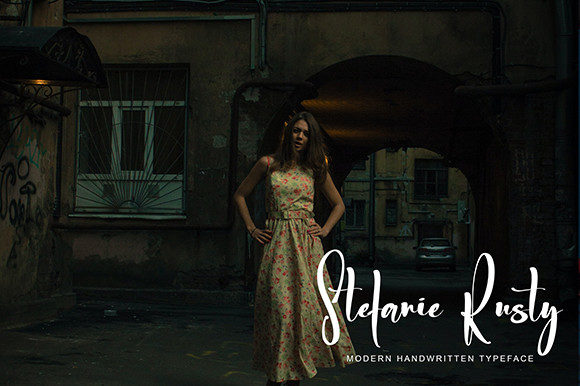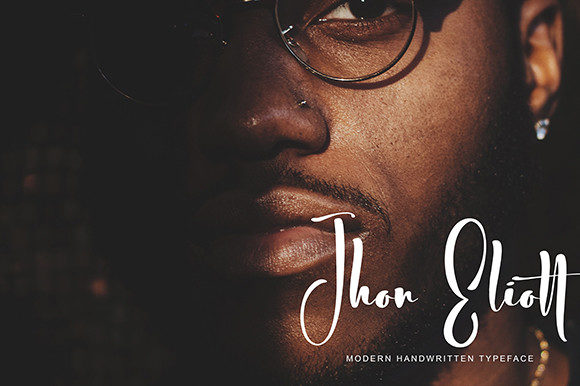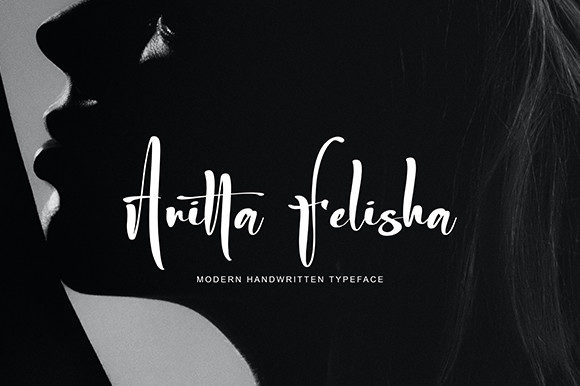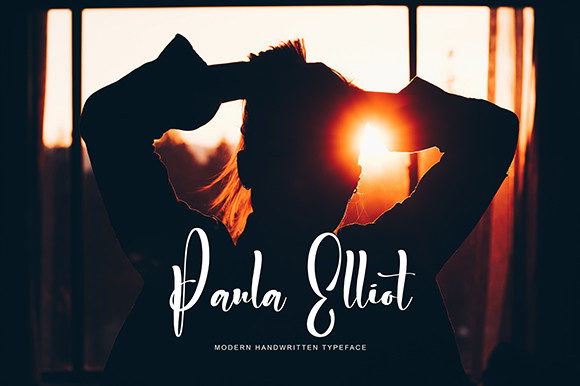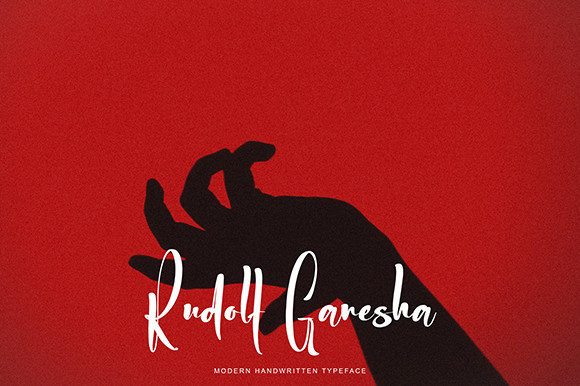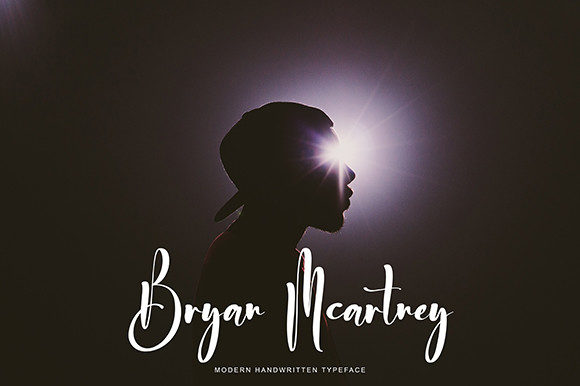
The Perfect Touch of Elegance: Introducing Amstterdam Font
Have you ever been working on a design project, pouring your heart and soul into it, only to feel like something’s missing? That’s when the magic happens – you stumble upon the perfect font. For me, that moment came when I discovered the Amstterdam Font. Its delicate, handcrafted feel instantly elevated my designs and gave them a luxurious touch.
| 👤 Author | Pineungtype & Missinklab |
Amstterdam Font is a calligraphy typeface designed to add a touch of sophistication to any project. With its unique characters dancing along the baseline, it’s the perfect choice for designers looking to create high-end designs. What sets it apart is its PUA encoding, making it easy to access all the amazing glyphs and ligatures. Whether you’re working on a branding project, a wedding invitation, or a marketing campaign, the Amstterdam Font is sure to impress.
Amsterdam Font Key Features
- Unique Characteristics: The font features a unique, modern design with a blend of geometric and organic elements, making it suitable for a wide range of applications, from corporate branding to digital products.
Amsterdam Font Review
Overall, the Amsterdam Font is a great addition to any design project. ✨ Its unique, hand-drawn feel gives it a distinctive charm that’s perfect for branding and editorial design. The font’s irregularities and subtle imperfections make it feel more human and less robotic, which can be a breath of fresh air in a world of overly polished typography.
- ✨ Unique, hand-drawn feel that adds character to designs
- ✨ Suitable for branding and editorial design
- ✨ Irregularities and imperfections give it a human touch
- ⚠️ Limited support for languages other than Latin-based scripts
- ⚠️ May not be suitable for body text due to its decorative nature
- ⚠️ May require additional styling to achieve consistent line height and spacing
Overall, I’m impressed with the Amsterdam Font’s unique character and versatility. While it may have some limitations, it’s a great choice for designers looking to add a touch of personality to their projects. With proper use and styling, this font can really shine.
Tips for Getting the Most Out of Amsterdam Font
Use Amsterdam Font for titles, headings, and body text to create a cohesive and elegant design. Experiment with different font sizes and colors to add visual interest to your design.
Use Amsterdam Font for:
- Restaurant menus and signage
- Event invitations and promotional materials
- Wedding stationery and decorations
- Magazine and newspaper headings